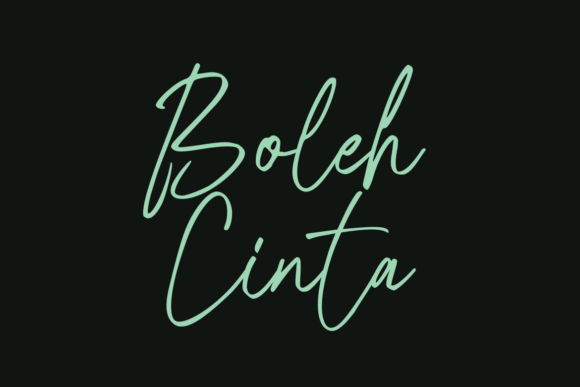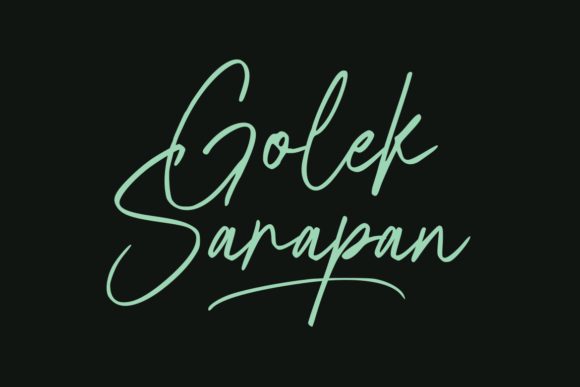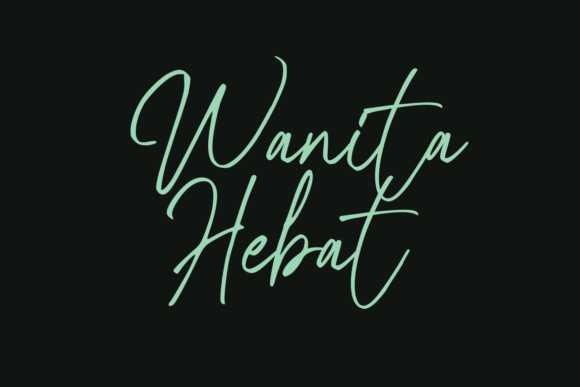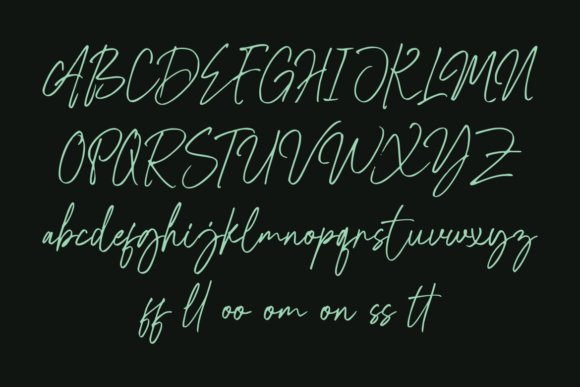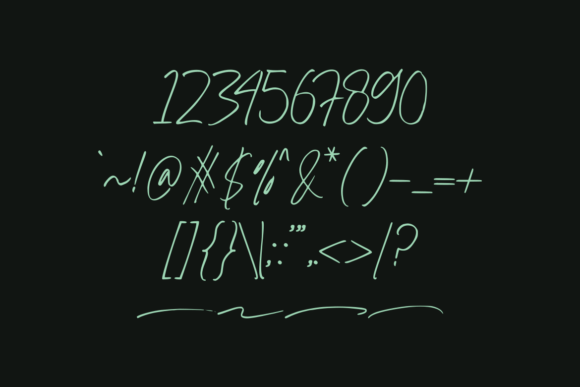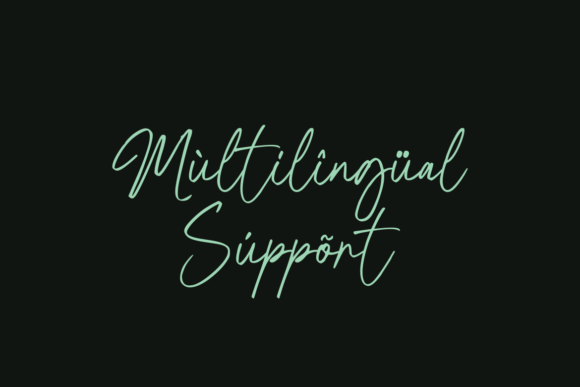
Introduction to Melampah Font
As a designer, have you ever found yourself pouring over a blank canvas, searching for the perfect font to bring your creative project to life? You know, that moment when everything clicks, and the words start flowing, and the design begins to take shape. For many of us, that moment is the result of a well-chosen font, one that elevates our work from good to great. And that’s exactly what the Melampah Font does.
This high-quality font is a masterclass in elegance and sophistication, with smooth curves and gentle strokes that seem to dance across the page. With its transparent background, it’s the perfect design resource for any creative project that requires a touch of refinement. And the best part? You can download it for free, making it an invaluable asset for designers of all levels.
Whether you’re working on a branding project, a wedding invitation, or a feminine design, Melampah Font is sure to add a touch of timeless charm and style to your work.
Key Features of Melampah Font
- High-quality design for creative projects, available for free download as a design resource.
- Unique and stylish font, ideal for use in logos, branding, and other visual identity elements.
- Comes with a transparent background, making it easy to place over any image or color.
- Supports a wide range of languages, making it a versatile design resource for international projects.
- Includes a variety of weights and styles, allowing designers to customize the look and feel of their creative project.
Honest Review: Melampah Font
I recently had the chance to experiment with the Melampah Font, and I’m excited to share my honest review with you. As a designer, I’m always on the lookout for high-quality fonts that can elevate my creative projects.
One of the things I appreciate about the Melampah Font is its unique and playful style. It’s perfect for adding a touch of whimsy to your designs, and it works particularly well for children’s book illustrations, graphic novels, and other creative projects where you want to convey a sense of fun and energy. ✨
That being said, I did encounter a few limitations with the Melampah Font. The font’s font family is relatively small, which can make it difficult to use in certain design scenarios. Additionally, the font’s unique style may not be to everyone’s taste. ⚠️
Overall, I think the Melampah Font is a great addition to any designer’s toolkit. While it may not be perfect, its unique style and free availability make it a valuable resource for creative projects. ✨
Common Use Cases for Melampah Font
Melampah Font is commonly used for graphic design, digital art, and creative writing projects. Its high-quality design and transparent background make it perfect for creating visually appealing graphics and designs.